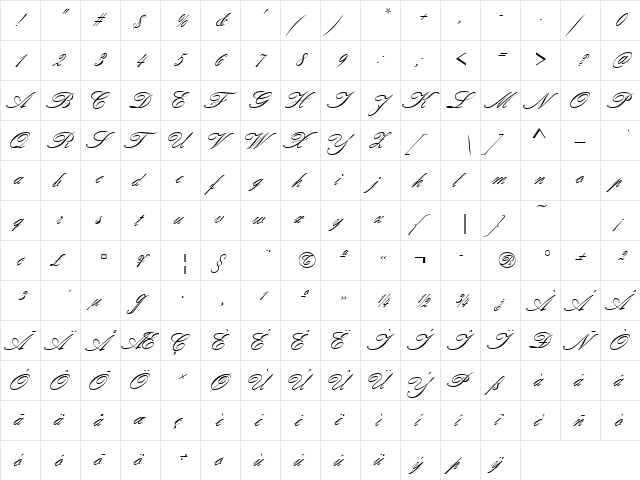
URWAtalantaJoiDReg Regular Font Preview
URWAtalantaJoiDReg Regular
Design Context for URWAtalantaJoiDReg Typeface
URWAtalantaJoiDReg is a composed and adaptable typeface that performs quietly and consistently across a wide range of design contexts.